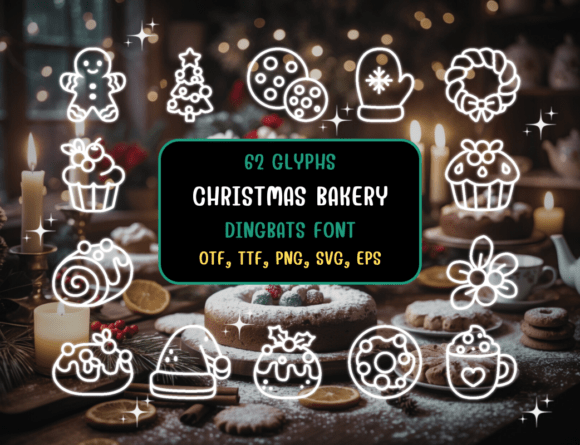
Christmas Bakery Font: A Charming Dingbats Font for Your Holiday Projects
Are you looking for a unique and festive font to add a touch of holiday cheer to your designs? Look no further than the Christmas Bakery Font, a charming dingbats font filled with a variety of hand-drawn Christmas Bakery illustrations. In this article, we’ll take a closer look at this delightful font and explore its many uses, from labels and packaging to stickers, greeting cards, educational materials, and creative projects.
What is Christmas Bakery Font?
Christmas Bakery Font is a dingbats font that features a collection of hand-drawn illustrations related to Christmas and baking. The font includes a wide range of images, from festive holiday icons like snowflakes, trees, and stockings to sweet treats like cakes, cookies, and gingerbread men. Each illustration is carefully crafted to bring a touch of whimsy and charm to your designs.
Characteristics of Christmas Bakery Font
So, what makes Christmas Bakery Font so special? Here are just a few of its key characteristics:
- Hand-drawn illustrations: Each image in the font is carefully hand-drawn to ensure a unique and personal touch.
- Variety of images: The font includes a wide range of illustrations, from holiday icons to baking-themed images.
- Dingbats font: Christmas Bakery Font is a dingbats font, which means it’s designed to be used as a decorative font rather than a traditional text font.
- Perfect for holiday projects: With its festive illustrations and charming style, Christmas Bakery Font is perfect for holiday-themed projects.
Uses for Christmas Bakery Font
So, what can you use Christmas Bakery Font for? The possibilities are endless! Here are just a few ideas to get you started:
- Labels and packaging: Add a touch of holiday cheer to your labels and packaging with Christmas Bakery Font.
- Stickers: Create festive stickers for gifts, decorations, or other holiday projects.
- Greeting cards: Use Christmas Bakery Font to create unique and personalized greeting cards for the holiday season.
- Educational materials: Add a touch of fun and whimsy to your educational materials, such as worksheets, activity sheets, or other learning resources.
- Creative projects: Use Christmas Bakery Font to add a festive touch to your creative projects, such as scrapbooking, crafting, or other DIY endeavors.
Tips for Using Christmas Bakery Font
Here are a few tips for getting the most out of Christmas Bakery Font:
- Experiment with different sizes and colors: Don’t be afraid to try out different sizes and colors to see what works best for your project.
- Mix and match illustrations: Combine different illustrations to create a unique and eye-catching design.
- Use it with other fonts: Pair Christmas Bakery Font with other fonts to create a visually interesting design.
- Have fun: Most importantly, have fun and be creative with Christmas Bakery Font!
Christmas Bakery Font is a charming dingbats font that’s perfect for adding a touch of holiday cheer to your designs. With its hand-drawn illustrations, variety of images, and festive style, it’s the perfect choice for labels, packaging, stickers, greeting cards, educational materials, and creative projects. Whether you’re a designer, crafty DIY enthusiast, or just someone who loves the holiday season, Christmas Bakery Font is sure to bring a smile to your face and inspire your creativity.
- What type of font is Christmas Bakery Font? Christmas Bakery Font is a dingbats font.
- Can I customize the illustrations in Christmas Bakery Font? While you can’t edit the illustrations themselves, you can resize, recolor, and combine them to create unique designs.